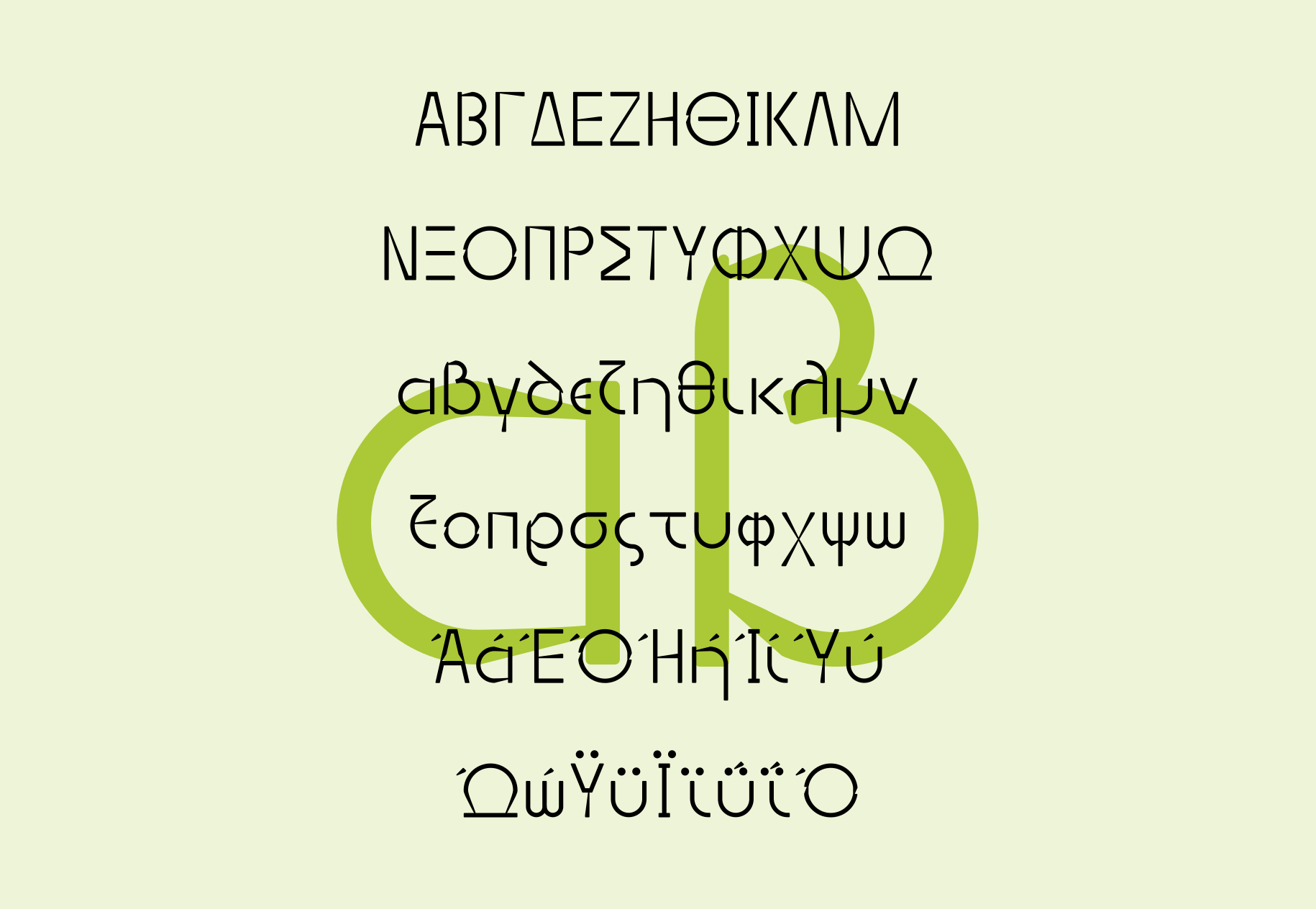
PVF_Gain is a Display Modern Geometric Sans-Serif with high contrast on its compounds reflecting a metallic effect. The font family of Gain is including Light, Regular, Semi-Bold, and Bold styles with their italics featuring Greek, Latin, numbers, and characters of symbols. You can download it and use it at your personal and/or commercial design work for free.